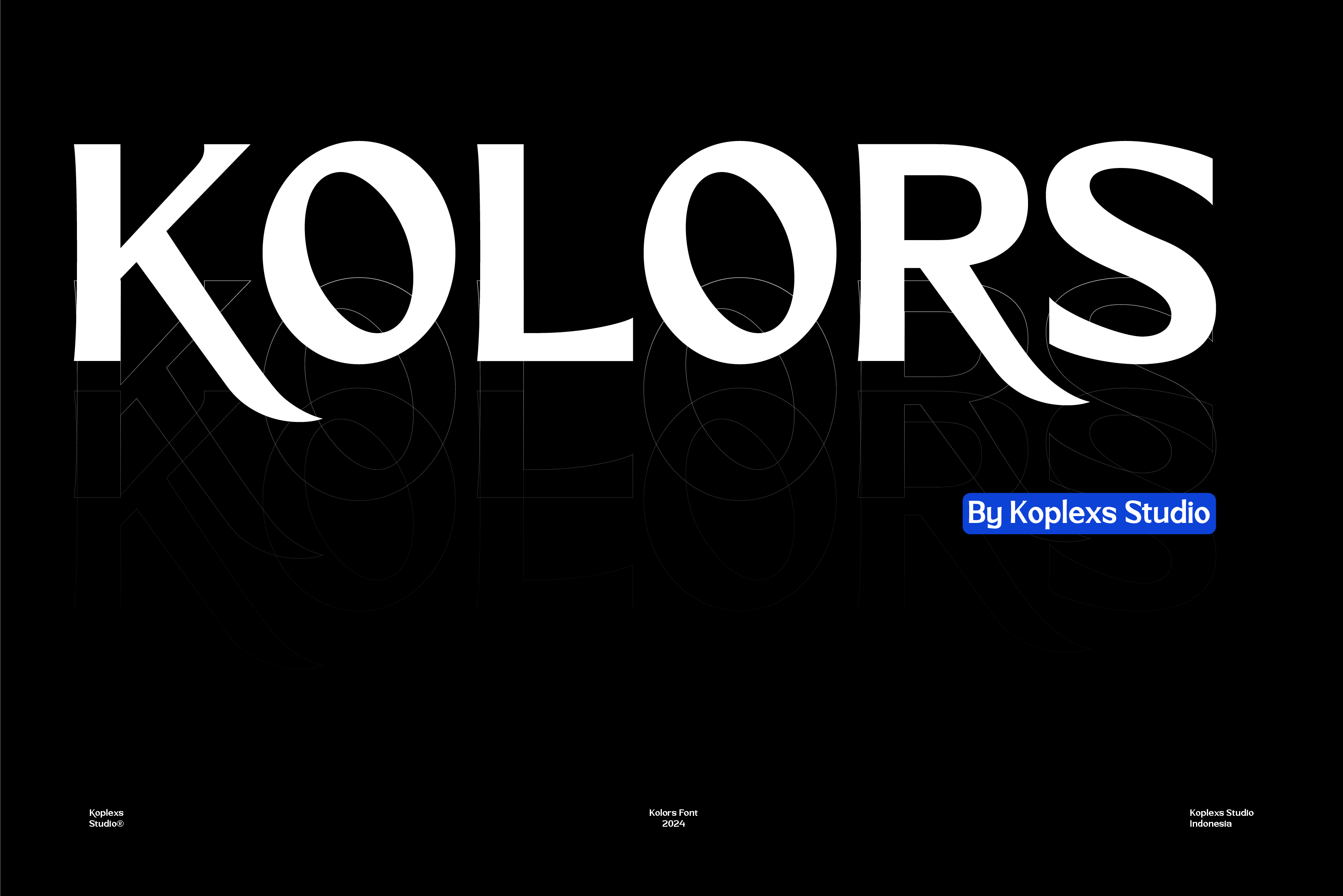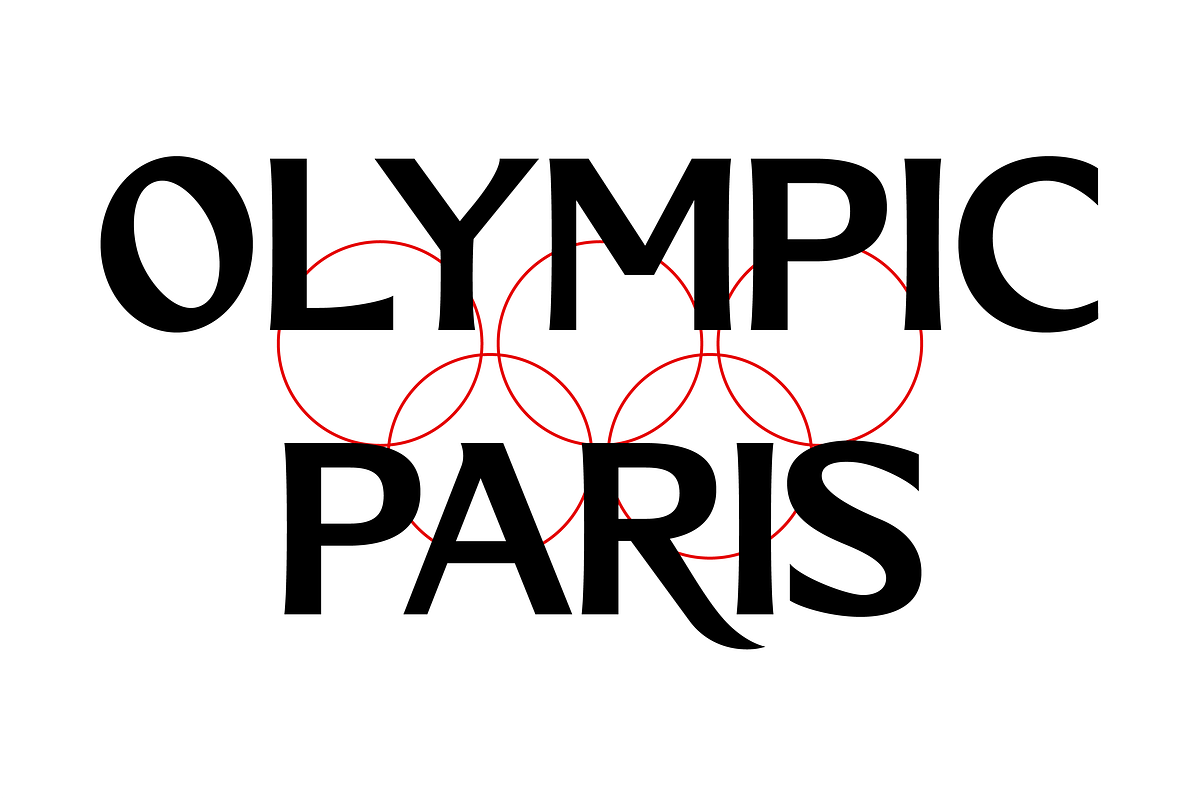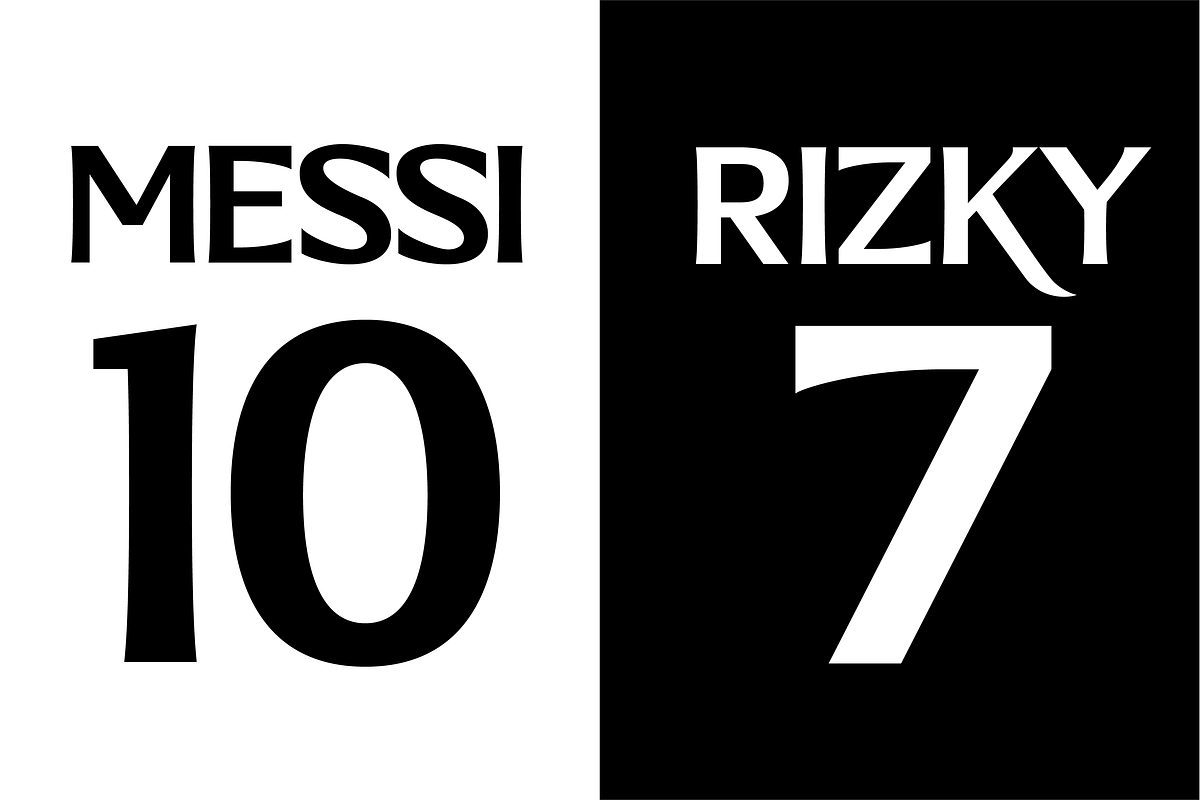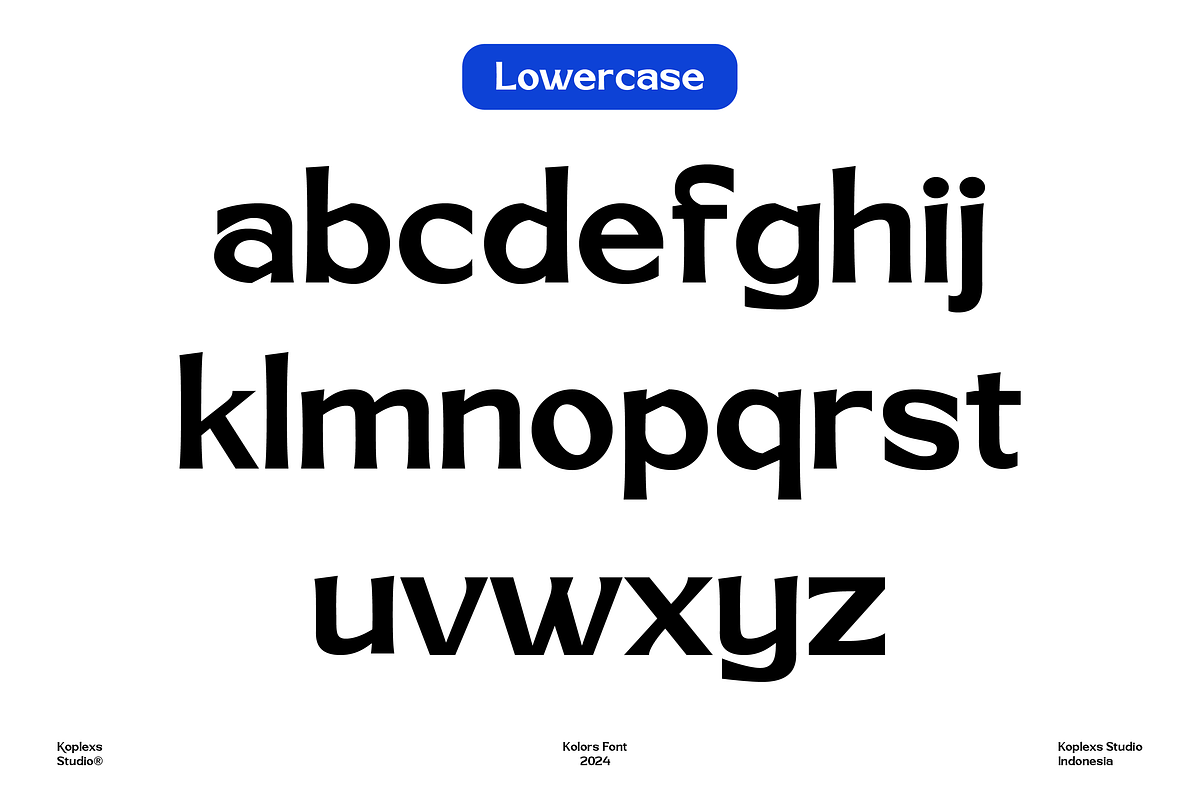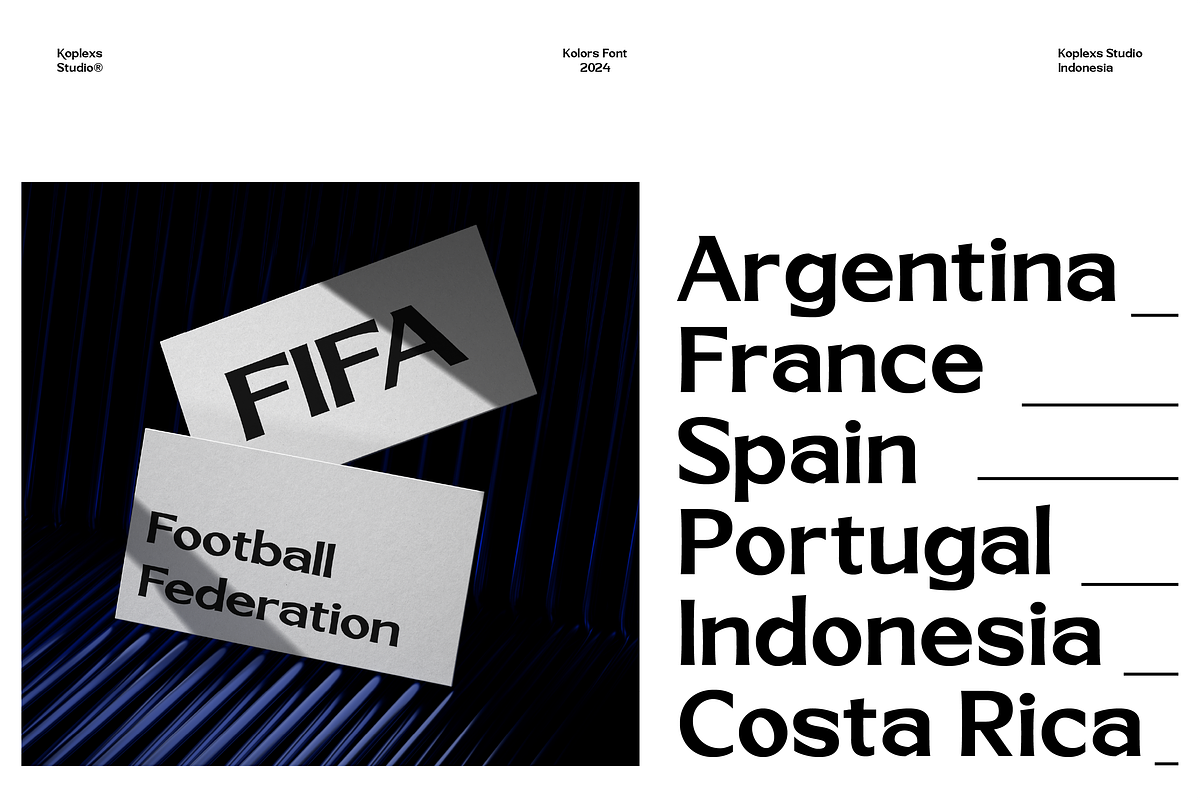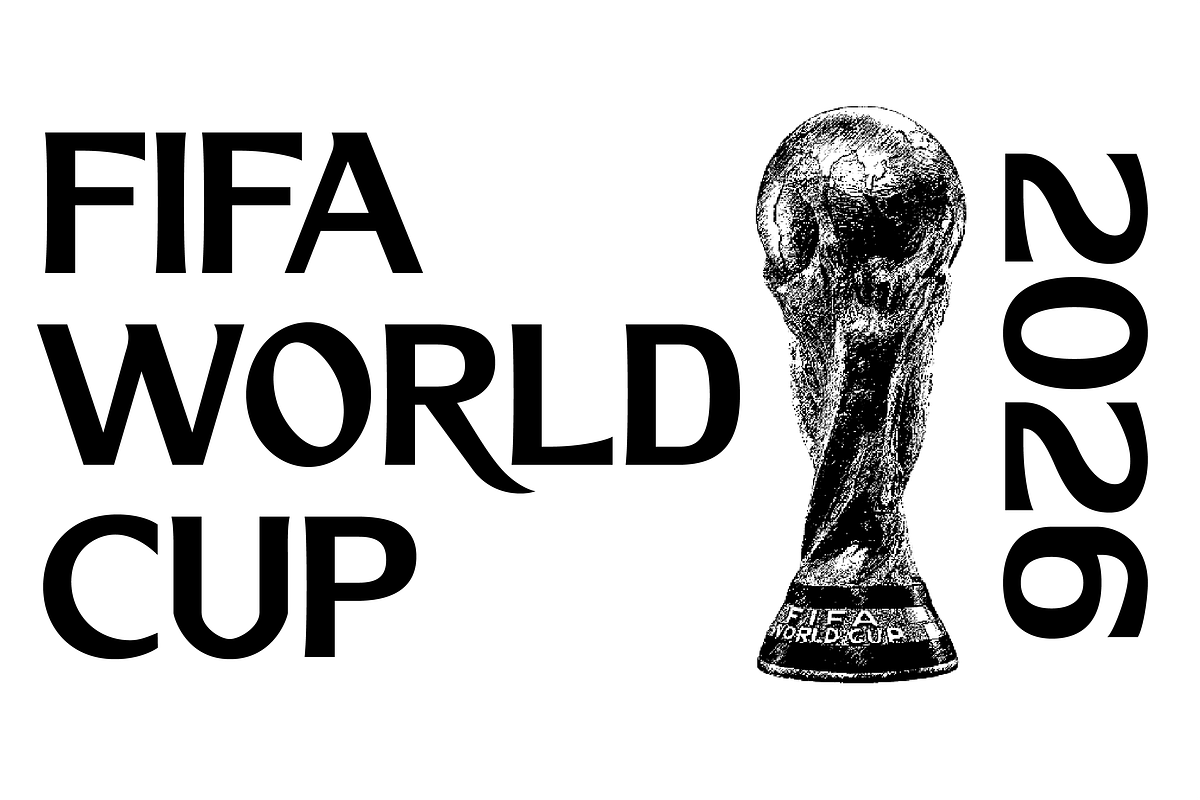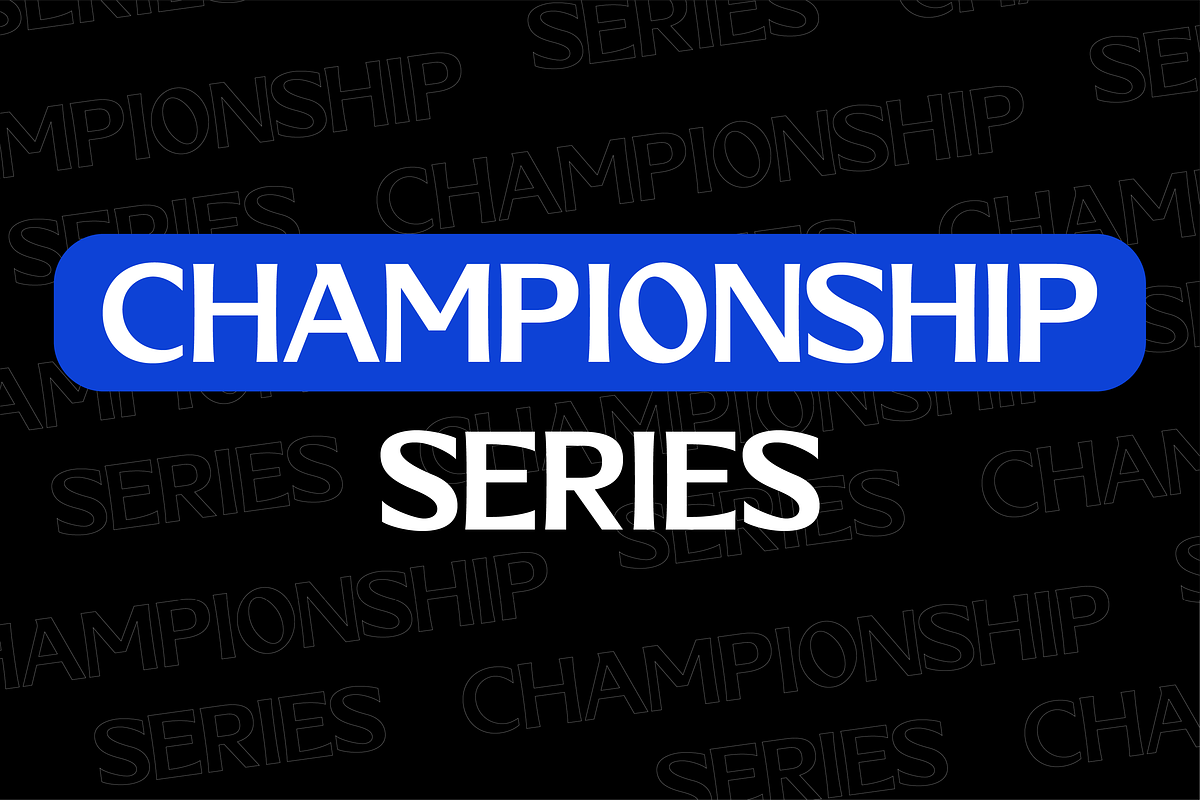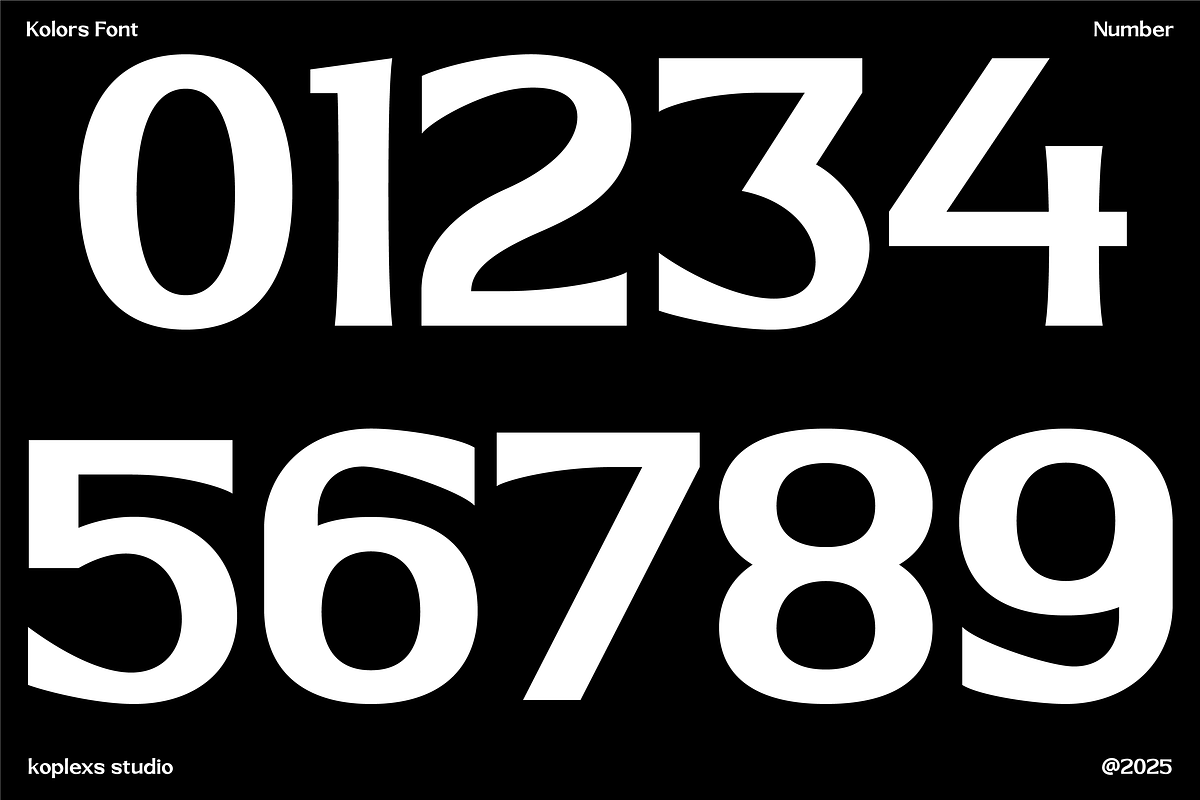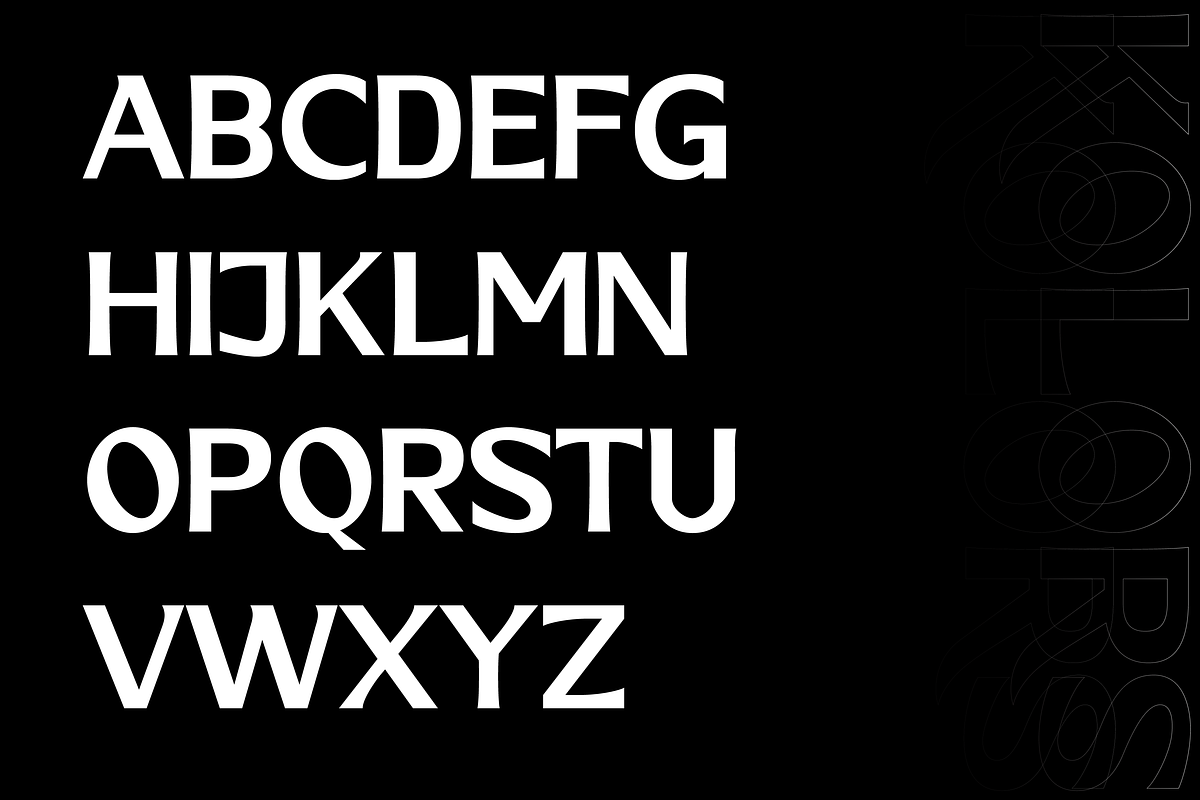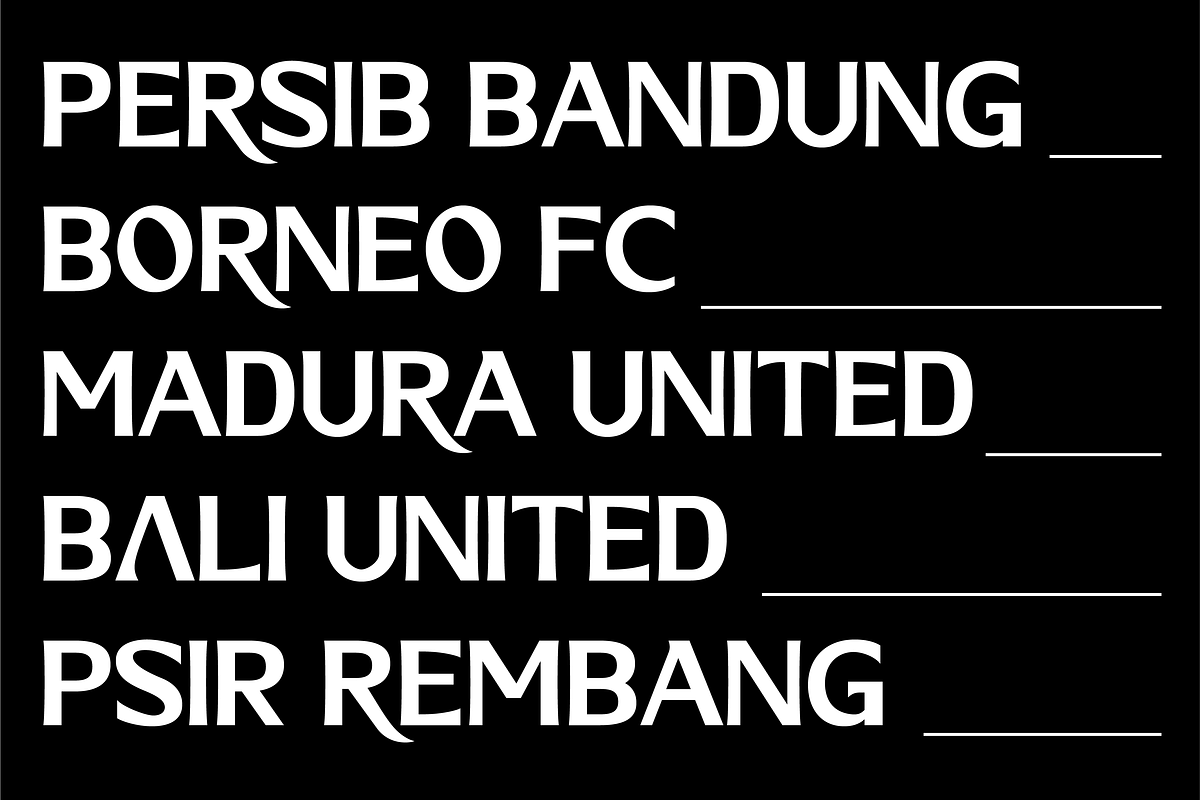
Kolors Modern Aesthetic Font
Kolors Font – Modern Aesthetic Typeface
Kolors Font is a modern and aesthetic typeface created by Koplexs Studio, designed to give your projects a bold and stylish identity. With its unique balance of sharp edges and smooth curves, this cool font belongs among the coolest fonts for designers looking to make a strong visual statement.
Perfect as a logo font, headline type, or branding tool, Kolors delivers sophistication and impact. It blends the character of an elegant font with the refinement of a luxury font, making it a versatile choice for fashion, sports, editorial, posters, and creative advertising. Its clean structure, stylish alternates, and multilingual support ensure that your designs stand out on both print and digital platforms.
Kolors Font Features
- Uppercase and lowercase letters
- Unique alternates and stylish strokes
- Perfect balance of elegance and boldness
- Works beautifully for digital and print
Kolors Font Perfect For
- Logo and branding projects
- Fashion and luxury design
- Sports jerseys and editorial headlines
- Posters, flyers, and advertising
- Digital graphics, websites, and social media